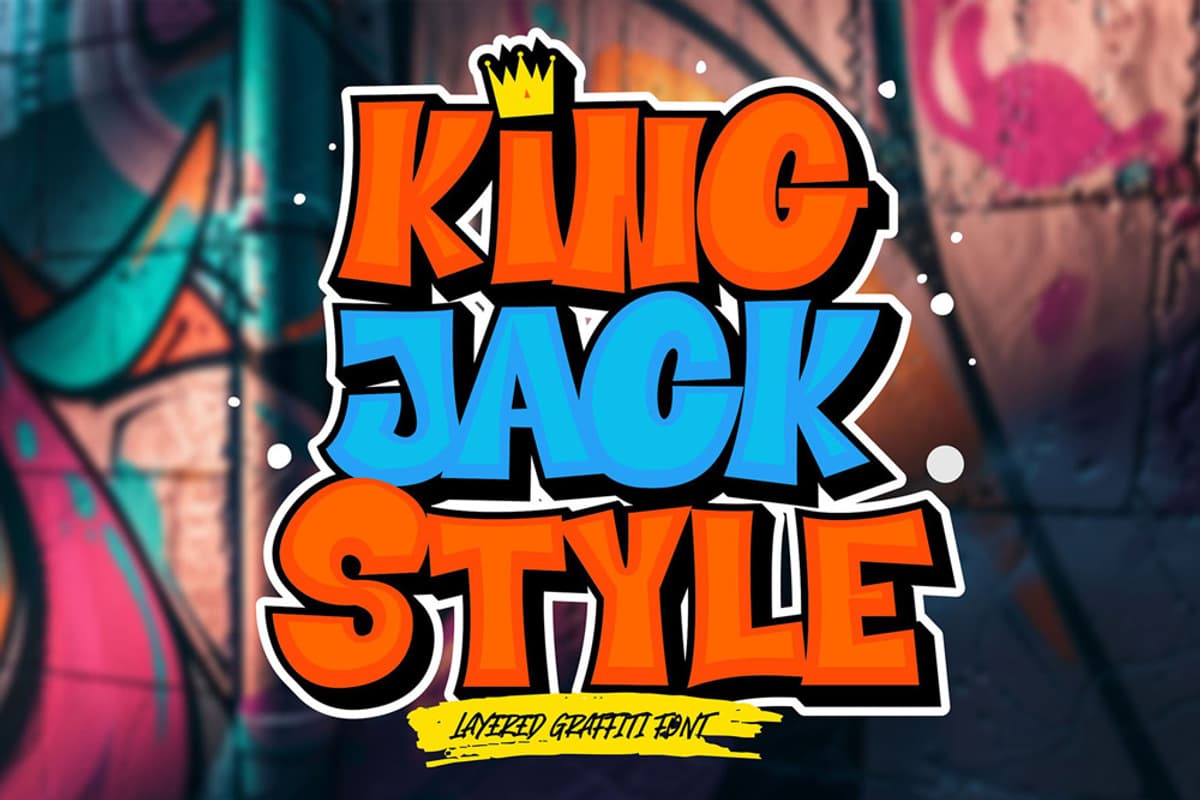
King Jack Style_Inner
Introducing King Jack Style – the ultimate Layered Graffiti Font that reigns supreme in urban design. Combining the raw power of street art with the versatility of layered typography, King Jack Style is crafted to elevate your creative projects with boldness and flair.